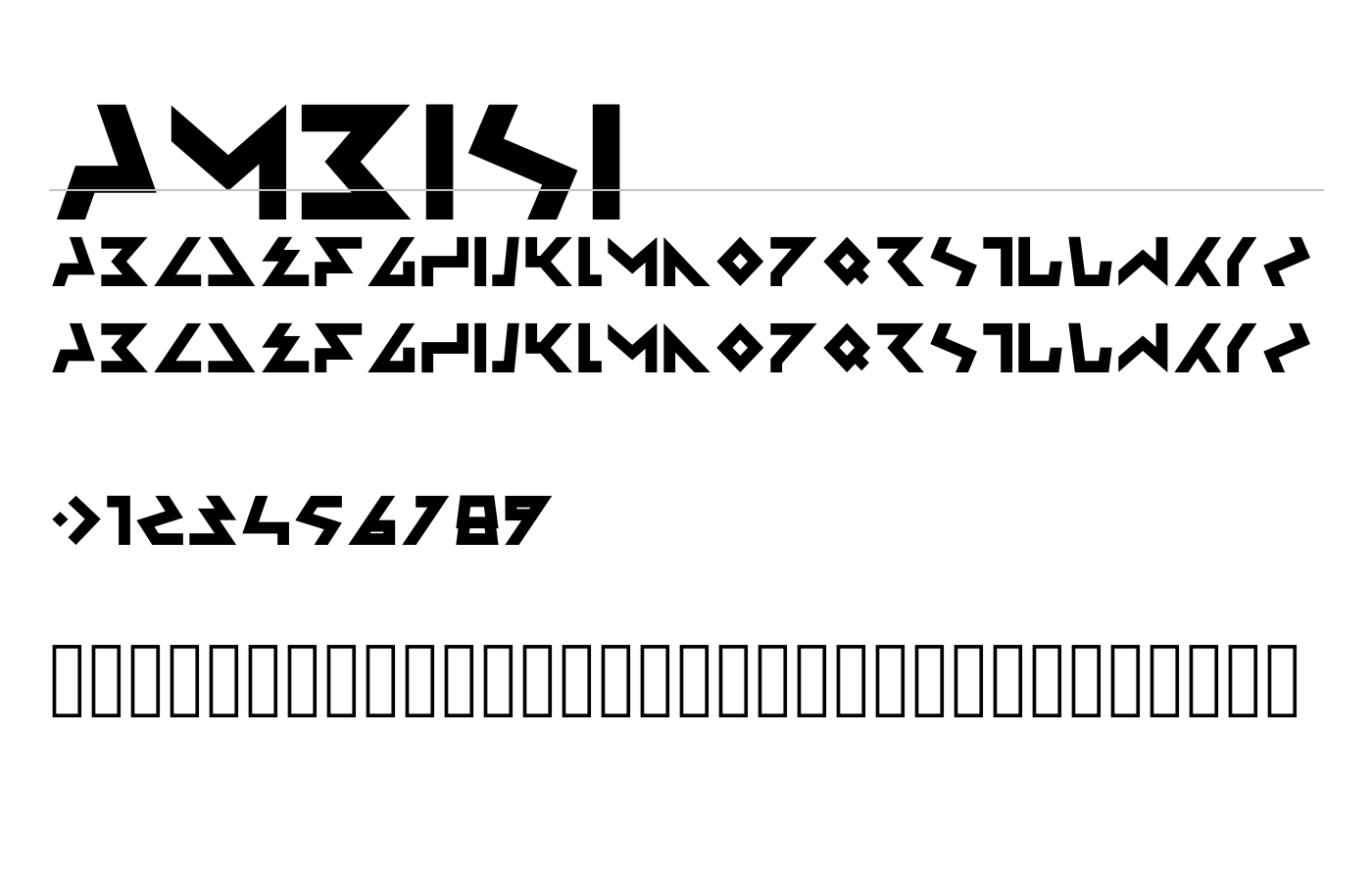
Ambisi is a bold, geometric display font with a futuristic and angular aesthetic, featuring sharp edges and stylized letterforms that convey a strong, dynamic presence. Its solid weight, condensed width, and uniform stroke contrast make it ideal for striking headlines, logos, and creative designs that seek to stand out with a modern, edgy vibe. This font excels in contexts where bold visual impact and a cutting-edge look are essential, such as tech branding, posters, and digital media.
Ambisi Font